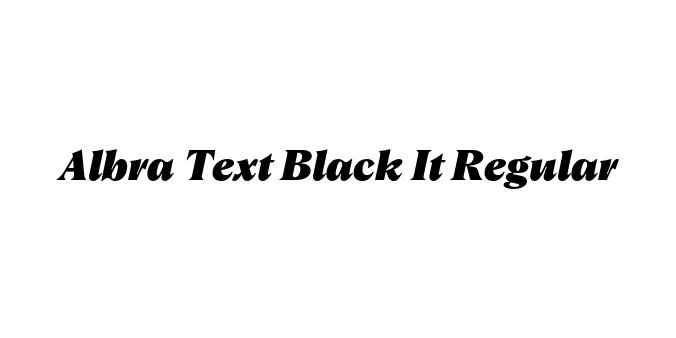
Albra Text Black It Regular
Designed by BumBumType
Albra Text Black It Regular is a sophisticated and high-impact member of the Albra typeface family, meticulously crafted by the design studio BumBumType. This specific variant is part of a larger collection that seeks to harmonize the timeless beauty of high-contrast serifs with the functional demands of contemporary typography. While the Albra family is known for its editorial elegance, the Text version is specifically optimized to maintain clarity and legibility at smaller sizes without sacrificing the soulful, organic curves that define its personality.
The Black Italic weight offers a powerful, calligraphic presence on the page, characterized by its deep ink traps and sharp, expressive terminals. It draws inspiration from 20th-century classic serifs but injects a modern, fashion-forward sensibility that feels both nostalgic and futuristic. This makes it an exceptional choice for designers looking to convey authority and luxury while maintaining a sense of artistic fluidity in their typographic layouts.
Albra Text Black It Regular Best Uses
Ideal for bold headlines and sophisticated pull quotes in high-end magazines.
Perfect for creating a premium visual identity for luxury and fashion brands.
Adds a refined touch to lifestyle blogs and digital editorial platforms.
Great for posters and promotional materials requiring a punchy yet elegant aesthetic.